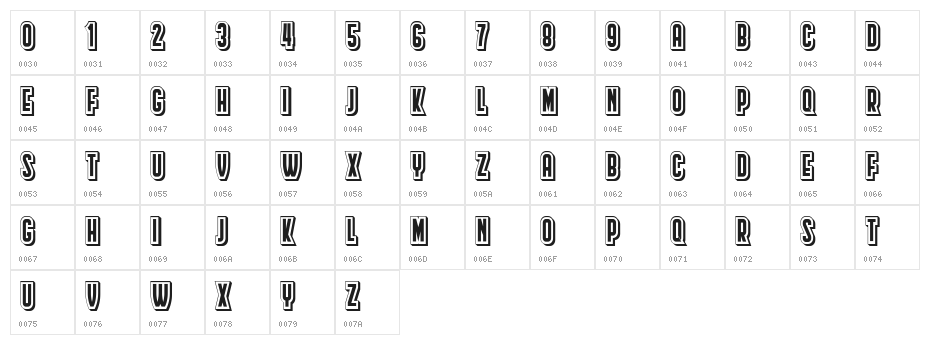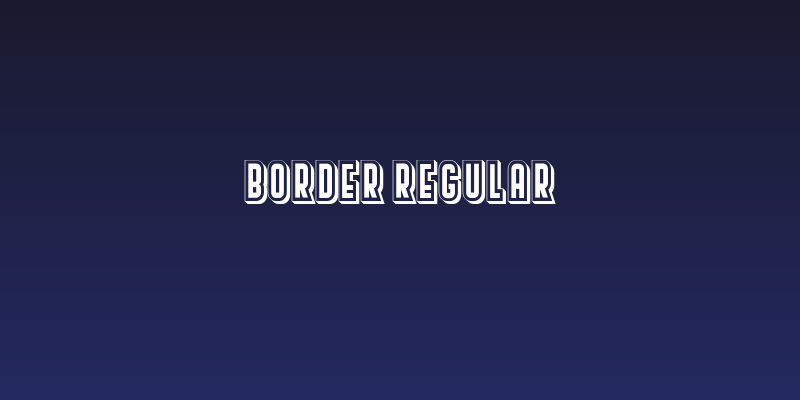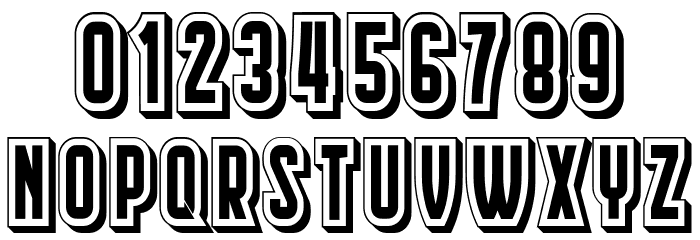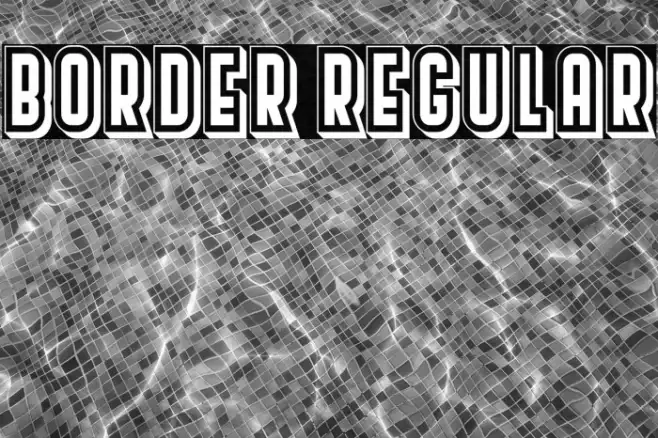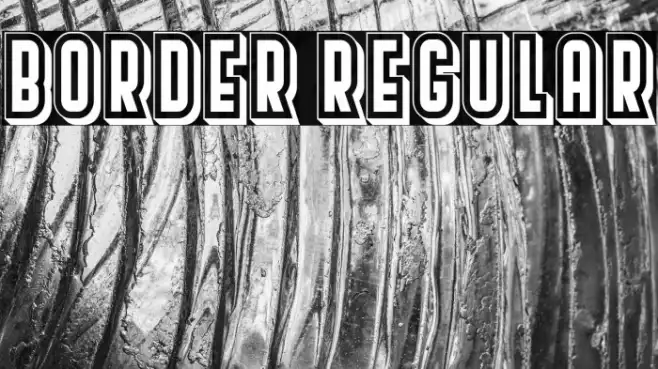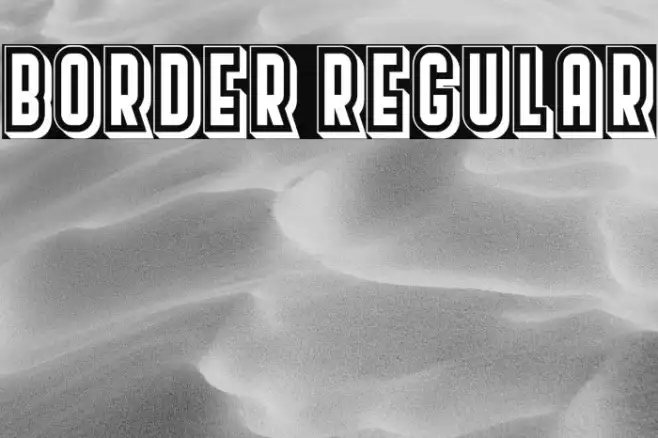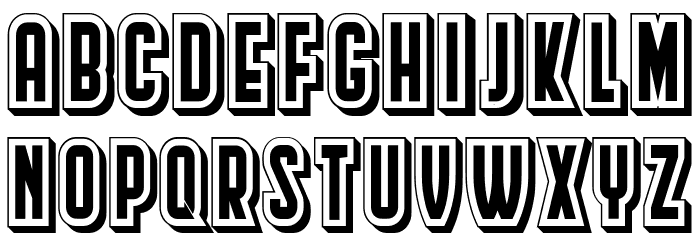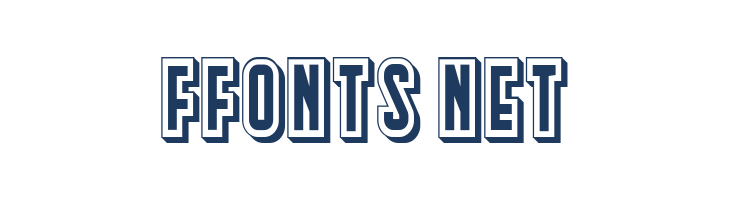
Border Regular Font
Border Regular Description
This font features bold, uppercase letters with a distinct double outline that creates a striking, three-dimensional effect. The characters are uniformly wide, with a strong geometric structure that emphasizes their boldness. The inner fill is solid, while the outer border adds depth and visual interest. This style is reminiscent of vintage signage or sports team logos, offering a sense of strength and impact. The font is well-suited for attention-grabbing headlines or branding that requires a bold statement.
| Proposed Projects | Perfect for sports team logos, vintage-style posters, and bold branding projects. |